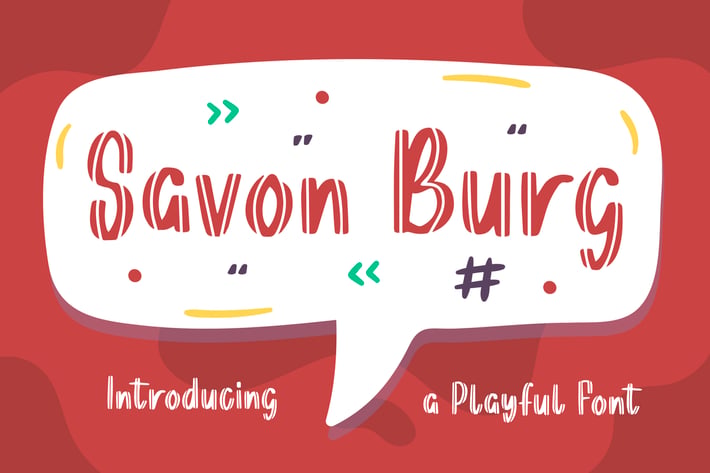
Savon Burg - Playful Display Font
Savon Burg is an awesome-looking playful display font. The glyphs have empty paths in the center of the line with a decorative feel. This original look will appeal to a wide range of crafty ideas, from letterheads and titles, packaging, branding, quotes, invitation card, gift card, to stationery.
– Lowercase
– Alternates
– Ligature
– Multilingual Support